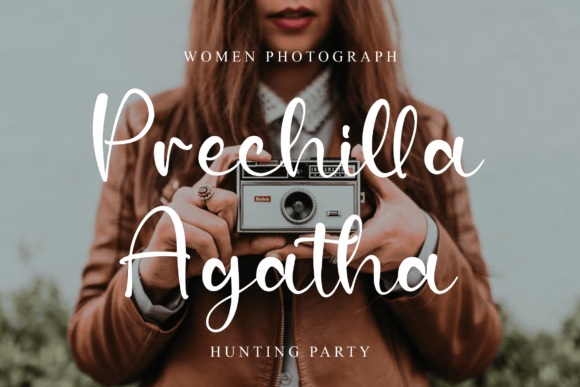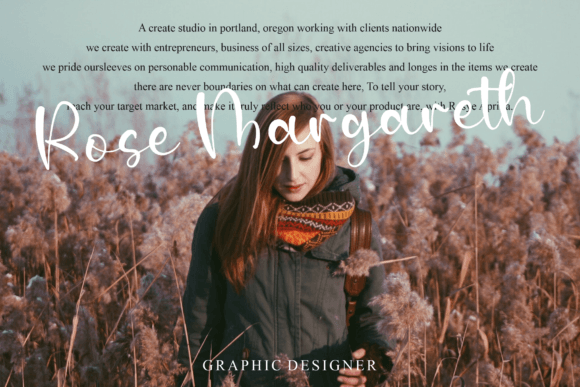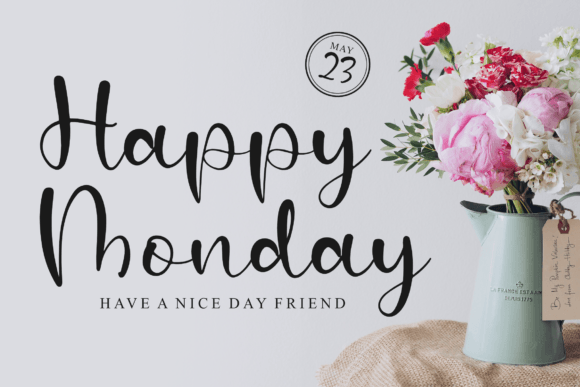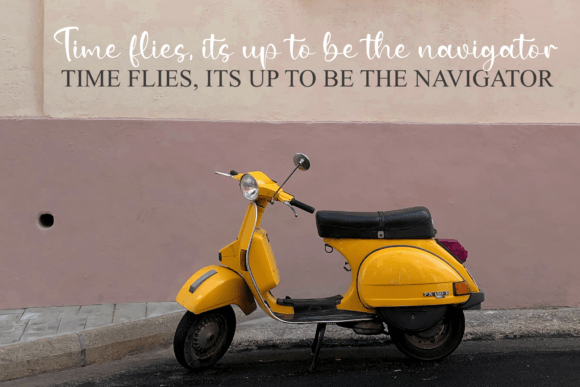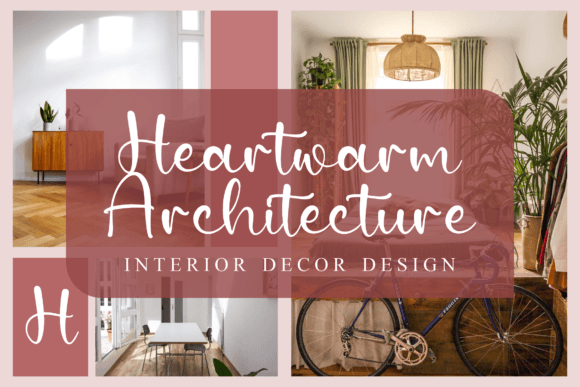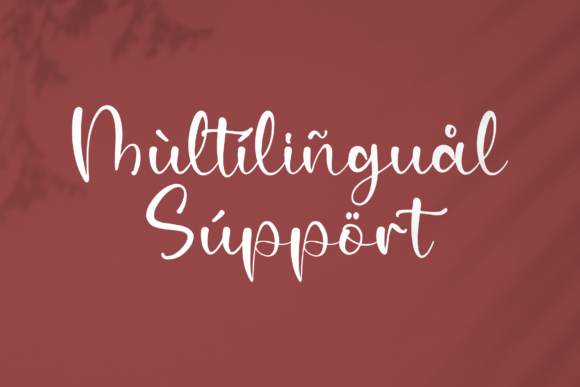
Introduction to Hymigo Malone Font Font
Fonts play a crucial role in design, and the Hymigo Malone Font font is a typeface that brings both character and versatility to any project. Whether you’re working on a branding project, a website, or a print design, the Hymigo Malone Font font offers a unique style that can elevate your work.
Hymigo Malone is a gorgeous script font that impresses through its natural and elegant style.
Add it to your most creative ideas, and notice how it transforms them into authentic pieces of art .
Key Features of Hymigo Malone Font Font
Why Choose Hymigo Malone Font Font?
The Hymigo Malone Font font is more than just a typeface – it’s a design tool that helps you communicate your message with style and clarity. Its unique character set and versatile design make it suitable for a wide range of applications, from elegant invitations to bold headlines.
With its carefully crafted letterforms and balanced proportions, the Hymigo Malone Font font ensures readability and visual appeal across all mediums.
What makes Hymigo Malone Font font special?
The Hymigo Malone Font font stands out with its unique design, exceptional readability, and versatility across various design applications.